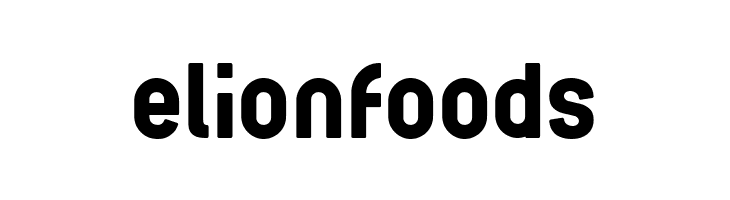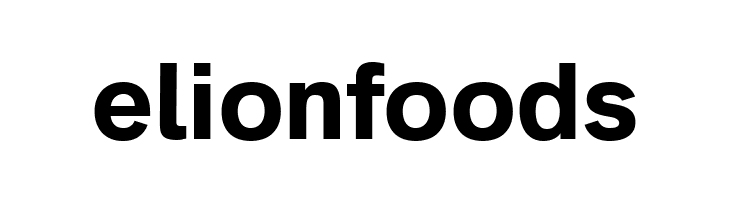
( Volker Busse - F25 Digital Typeface Design - Volker Busse - www.grafikkontor-mitte.de )
A bold, monospaced font with uniform strokes and clear readability.
( Volker Busse - F25 Digital Typeface Design - Volker Busse - www.grafikkontor-mitte.de )
A bold, monospaced font with a typewriter-like aesthetic.
( Walter E Stewart )
A playful, rounded font with a friendly and approachable design.
( Zess Type - zesstype.com/ )
A bold, modern font with rounded edges and geometric influences.
( Zetafonts - www.zetafonts.com )
A tall, narrow font with a modern yet vintage style, perfect for impactful headlines.
( Zetafonts - www.zetafonts.com )
A modern, ultra-light, condensed font with a minimalist design.
A bold, geometric font with a strong, industrial style.
( ingoFonts - Ingo Zimmermann - www.ingofonts.com )
A bold, modern sans-serif font with clean lines and high legibility.
( Bradley Stewart - www.bradley-stewart.com/ )
A modern, grid-based italic font with a digital, pixelated style.
( Digital Agent Factory - web.archive.org/web/20030621173551/daf.to/font.html )
A playful, bold font with characters enclosed in circles, offering a unique and cohesive look.